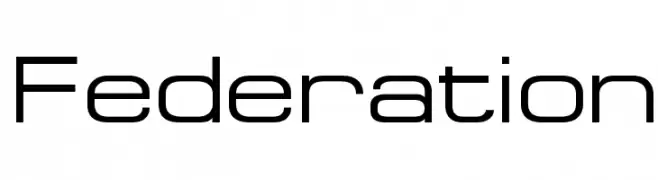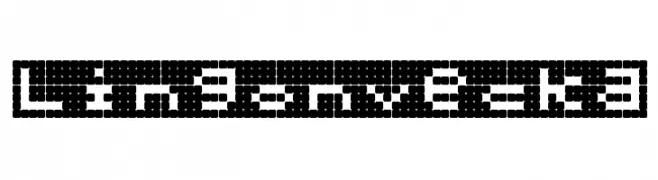
( Fonts by Spork Thug Typography - Josh Wilhelm - www.lifewithouttaffy.com/taffy/blog )
A futuristic, boxy font with a digital and geometric style.
( Fonts by www.aenigmafonts.com )
A modern, geometric font with rounded edges and a monolinear stroke.
( Fonts by ShyFonts )
A pixelated, retro-style font with a blocky, digital appearance.
( Fonts by TarmSaft Font Factory - http://www.aska.nu/tarmsaft/ )
A dot matrix font with a modern, digital display style.
( Fonts by Jacob Fisher - www.pizzadude.dk )
A bold, playful font with a hand-drawn, informal style.